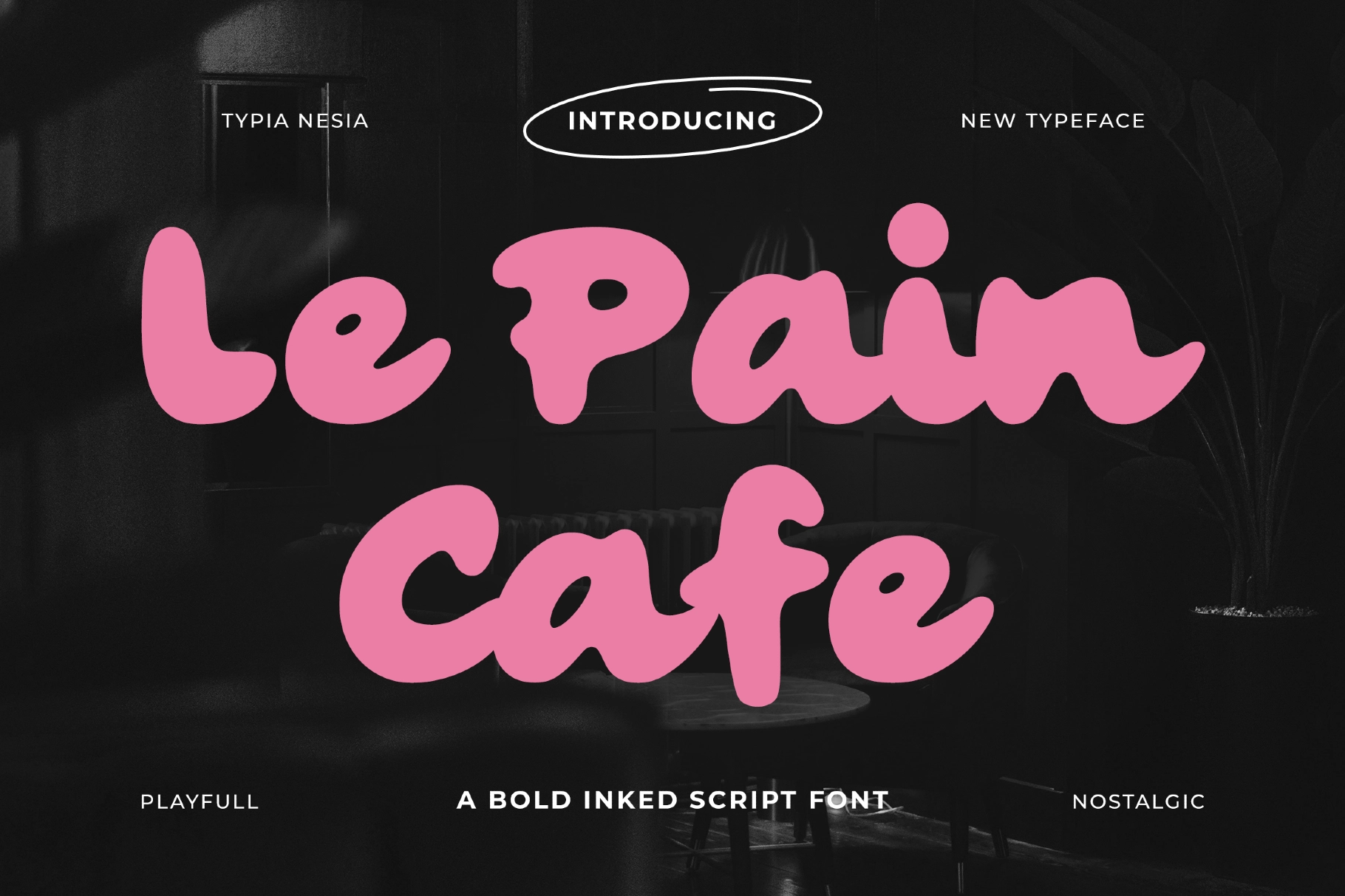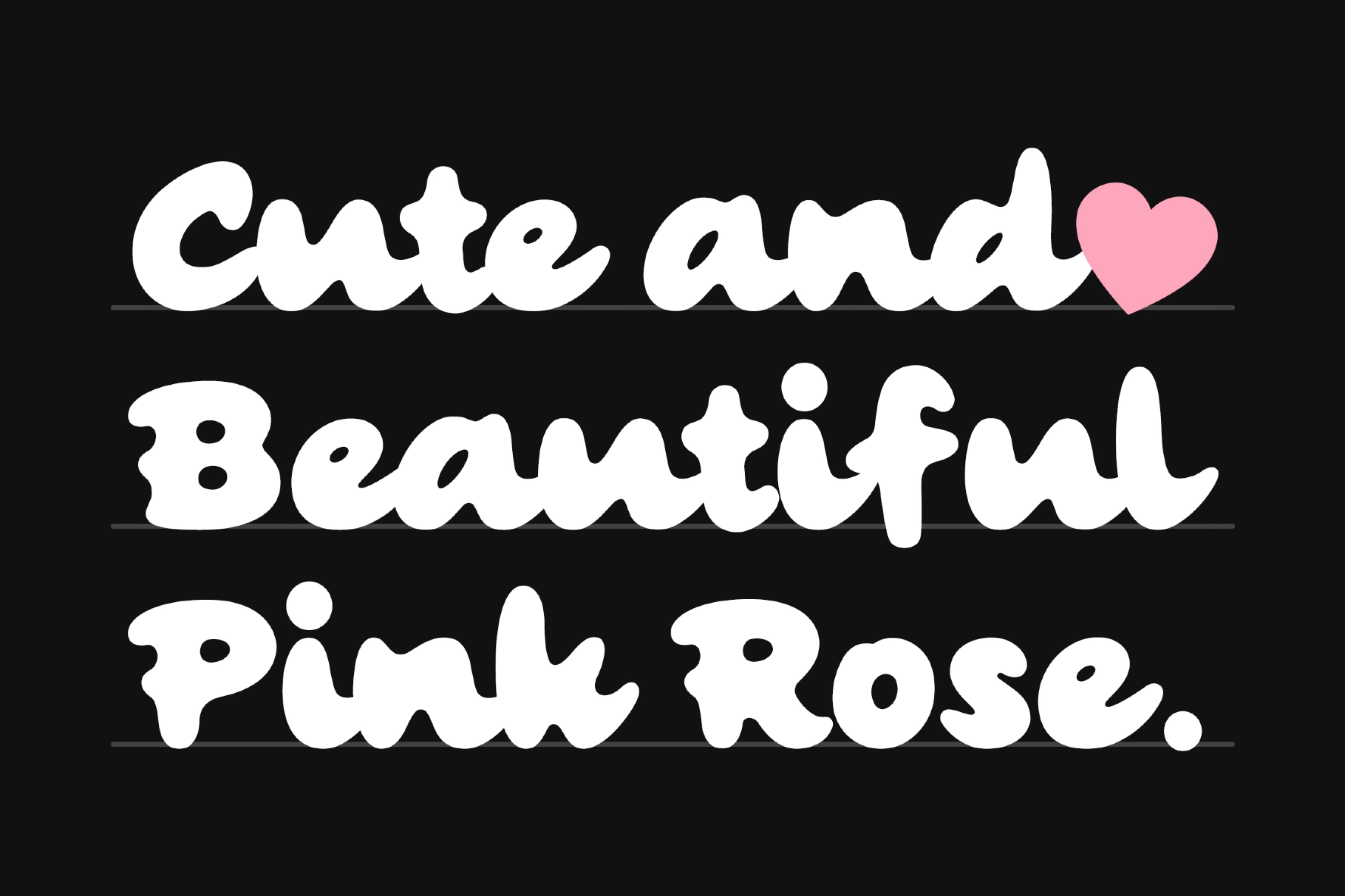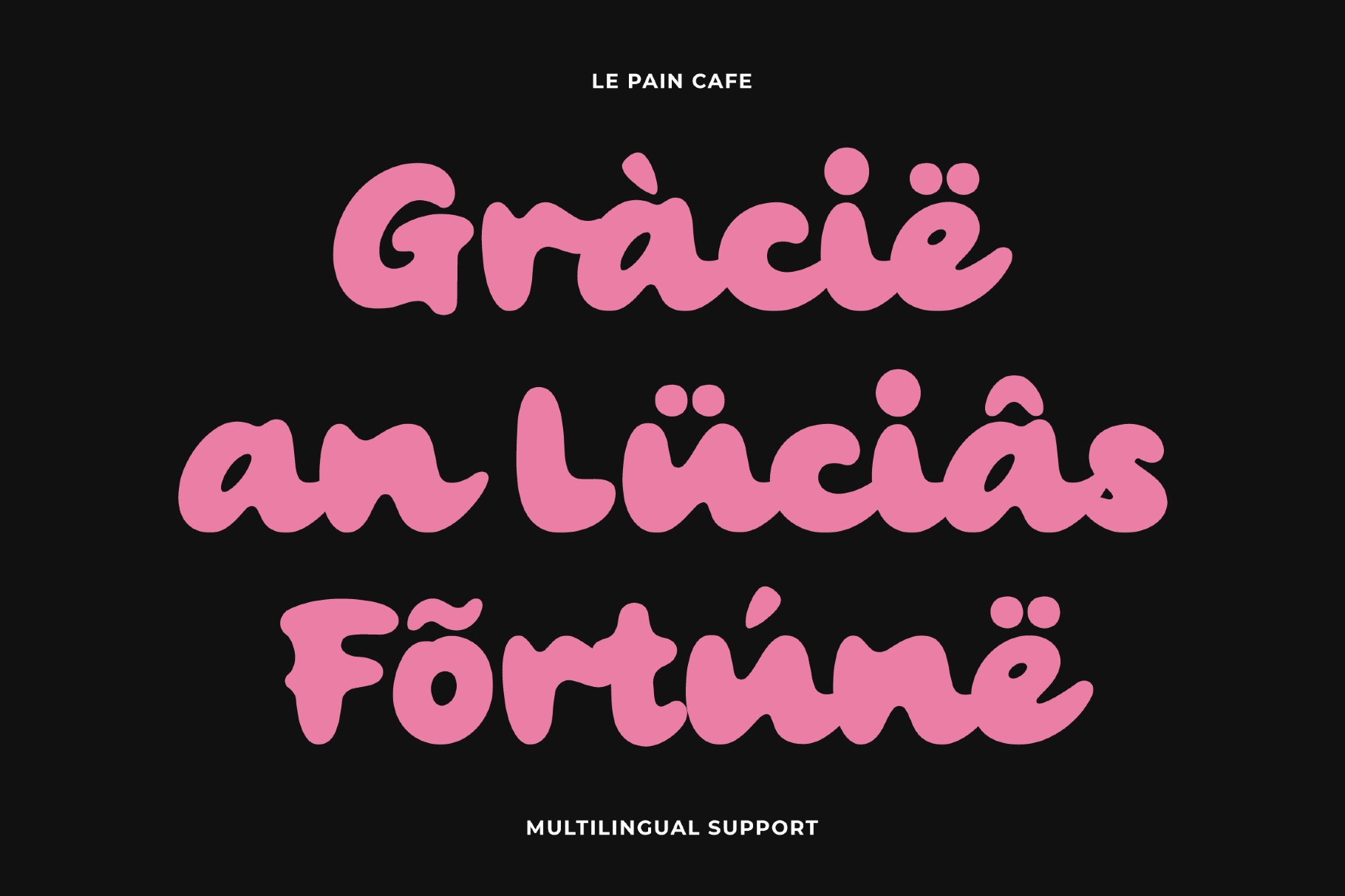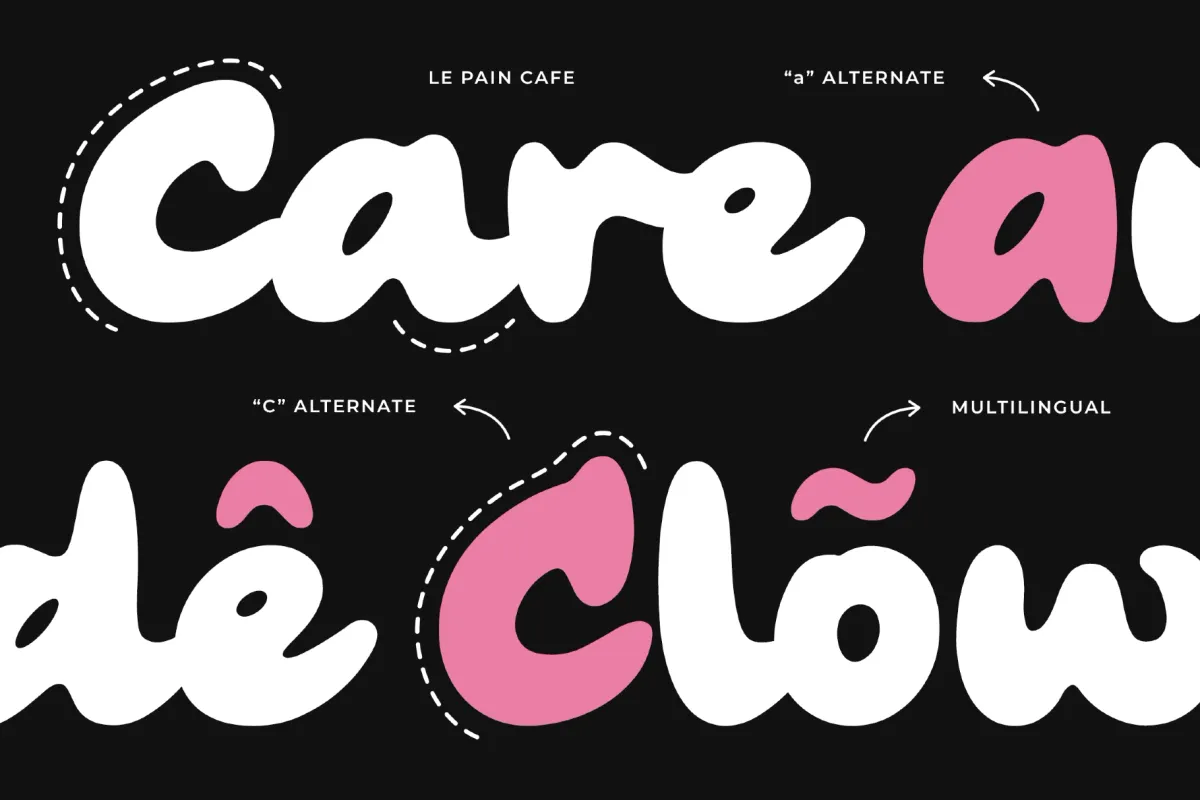
Le Pain Cafe - Bold Retro Brush Script
Le Pain Cafe is a script font rooted in vintage 1980s inspiration, balancing lively retro charm with professional craftsmanship. Its bold, handwritten shapes create a sense of warmth, well-suited for projects needing an inviting, playful personality. The brush-stroke styling conveys an approachable yet polished look ideal for trend-conscious coffee shops, cozy cafes, boutique bakeries, or any branding that benefits from a handcrafted feel. Logo designs, menu layouts, product packaging, and kid-centric branding all benefit from Le Pain Cafe unique presence.
Rounded forms and dynamic ligatures lend energy to each letter while maintaining a coherent, readable script. This typeface is equipped with an extensive character set and robust multilingual support, providing creative flexibility and international usability.